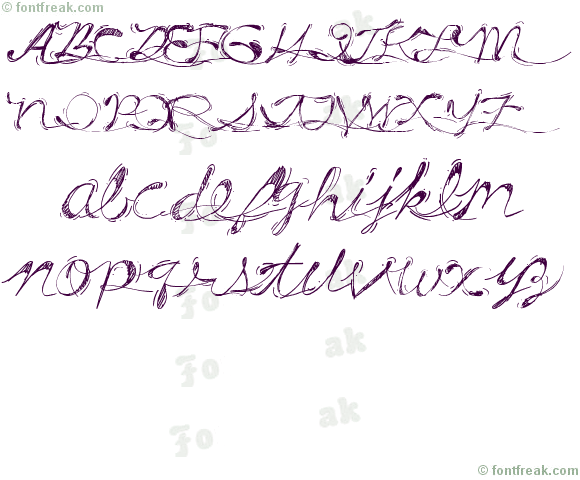
Drunk Tattoo
Drunk Tattoo by XEROGRAPHER FONTS is a striking display typeface that embodies a unique blend of edginess and artistic flair. This freeware font showcases an expressive handwritten style, characterized by its dynamic strokes and fluid forms. The design features a medium stroke weight with a slightly uneven flow, adding to its raw, tattoo-inspired aesthetic. The decorative elements—such as exaggerated swirls and playful curves—enhance its visual appeal, creating a sense of movement that draws the eye.
Ideal for a variety of creative projects, Drunk Tattoo excels in applications such as wedding invitations where a personal touch is desired, movie posters that aim to capture attention with a bold statement, and restaurant menus that seek to convey a fun and relaxed atmosphere. Additionally, it can be effectively used in branding for small businesses looking to stand out with an unconventional flair, as well as in social media graphics that require a unique visual identity.
The target audience for this font includes graphic designers, small business owners, and content creators who appreciate an artistic approach to typography. Whether you’re crafting a distinctive logo or designing promotional materials, Drunk Tattoo offers versatility and character.
What sets the Drunk Tattoo font apart is its ability to convey personality and emotion, making it an excellent choice for projects that call for a touch of rebellious spirit. With its free download option, this font allows creatives to experiment and express themselves without breaking the bank. Embrace the artistry and individuality that Drunk Tattoo brings to your designs and let your projects speak volumes.